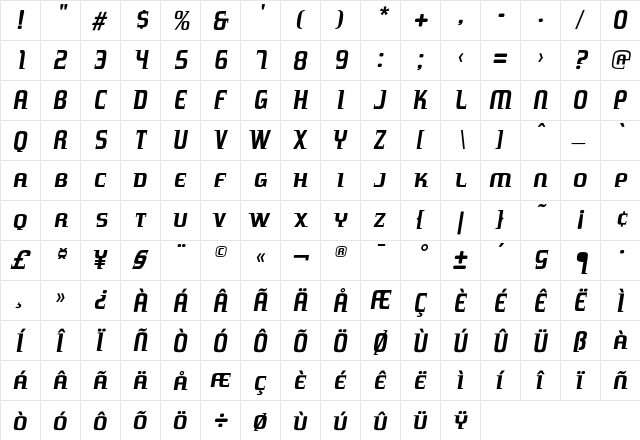
77London Fall
Design Context for 77London Typeface
77London is a composed and adaptable typeface that performs quietly and consistently across a wide range of design contexts.